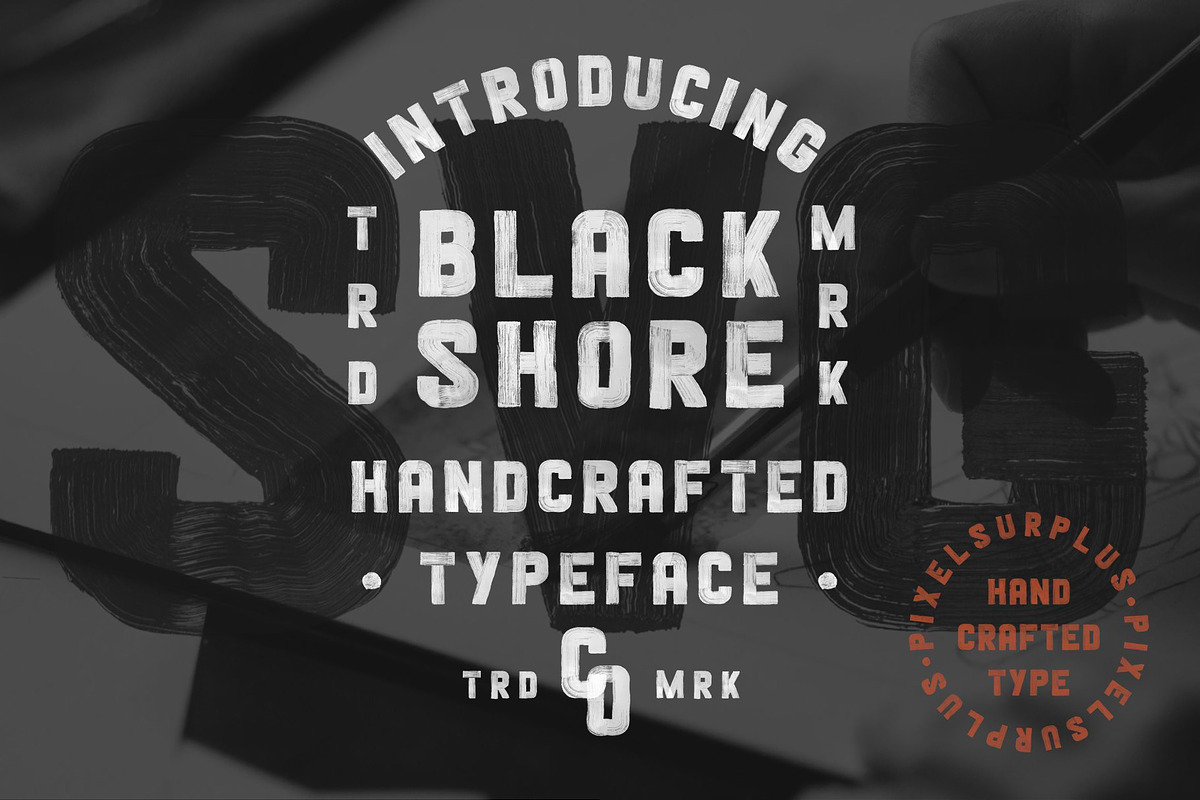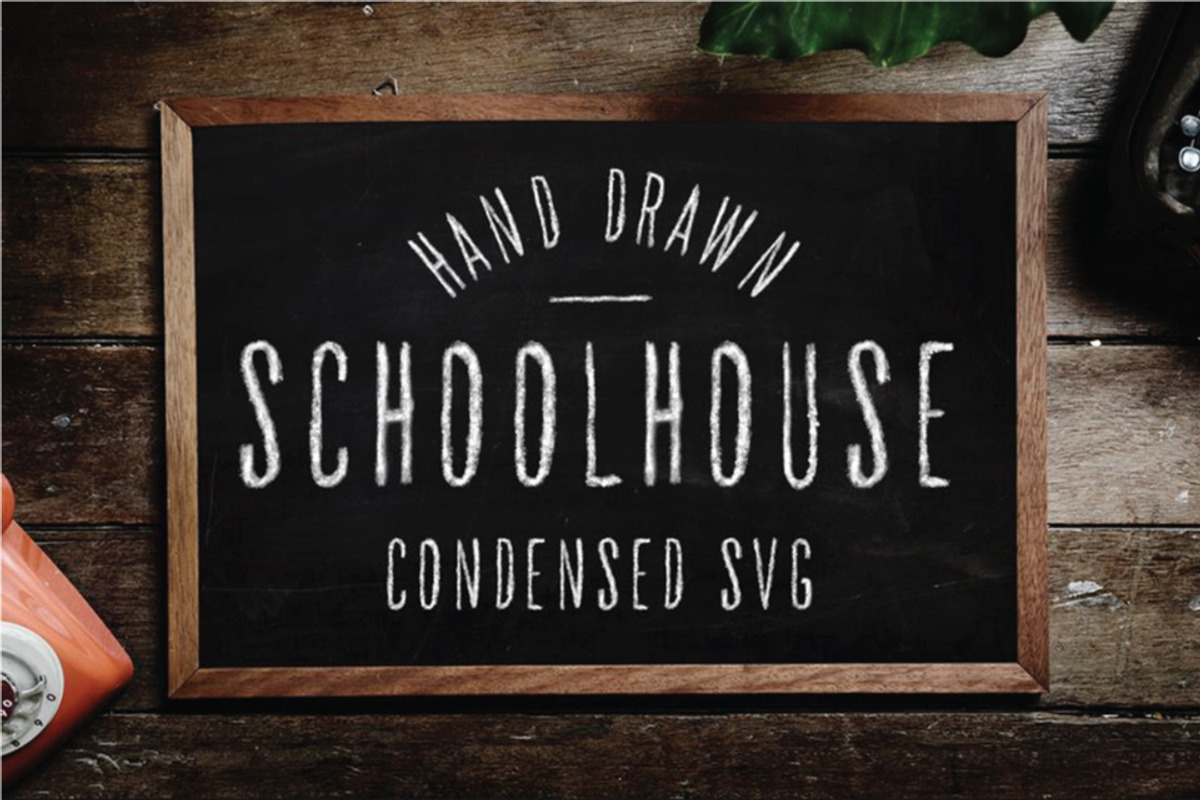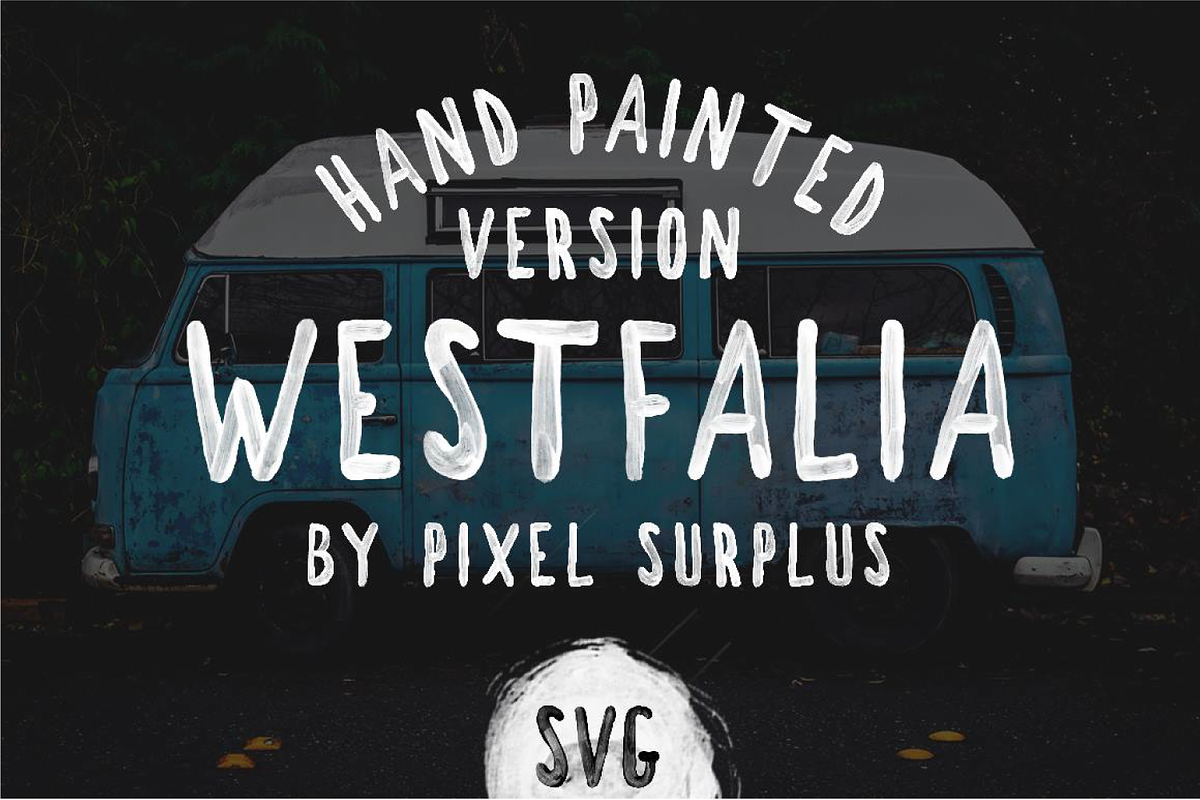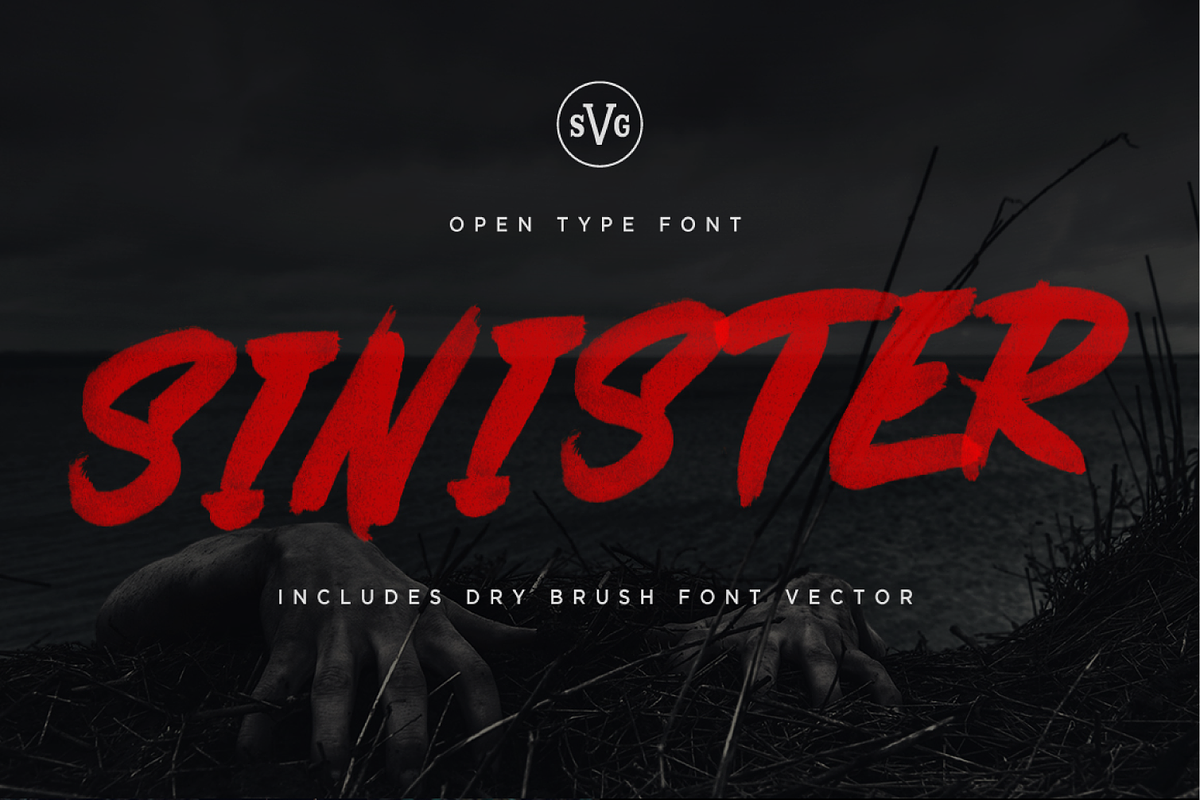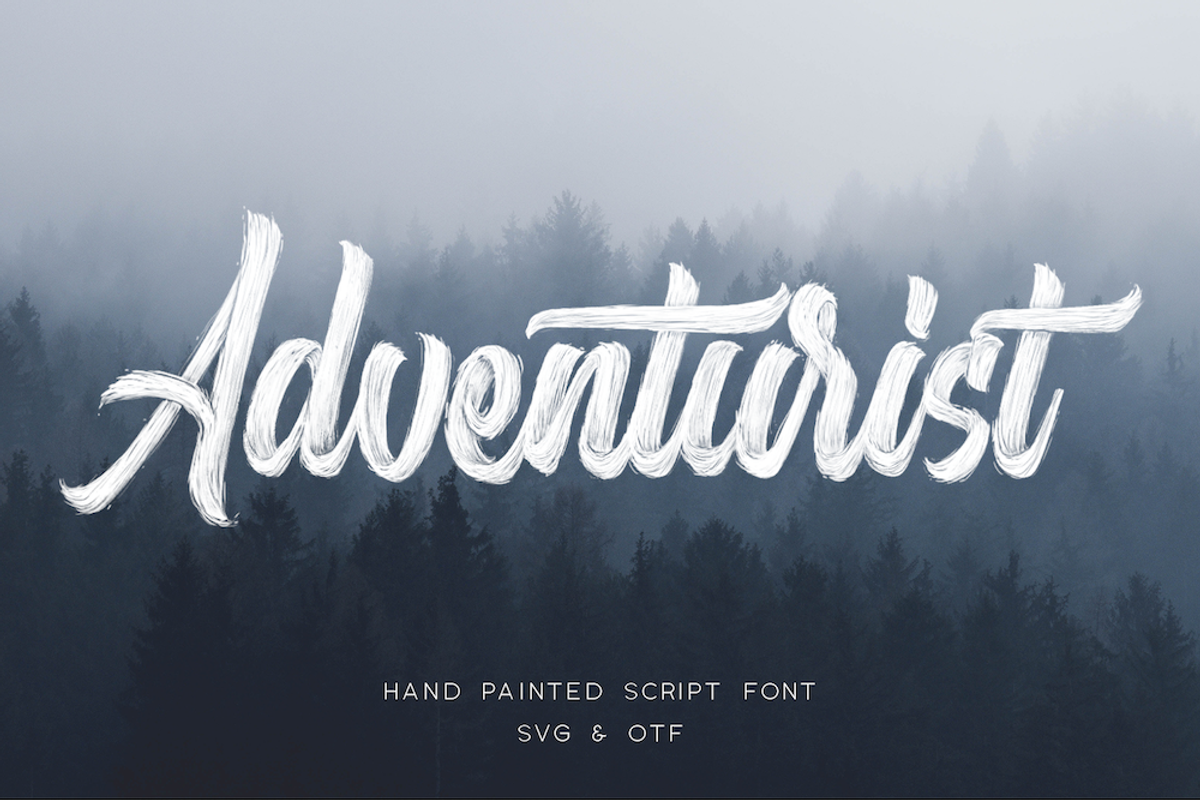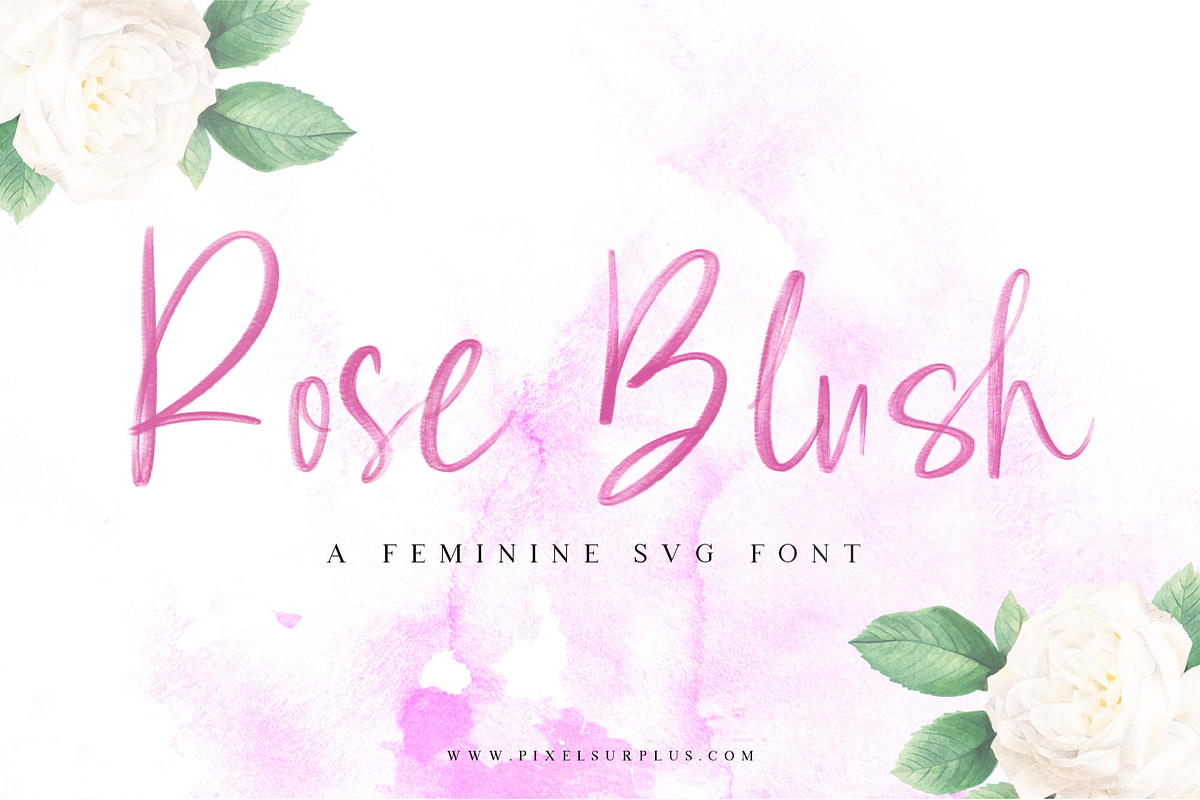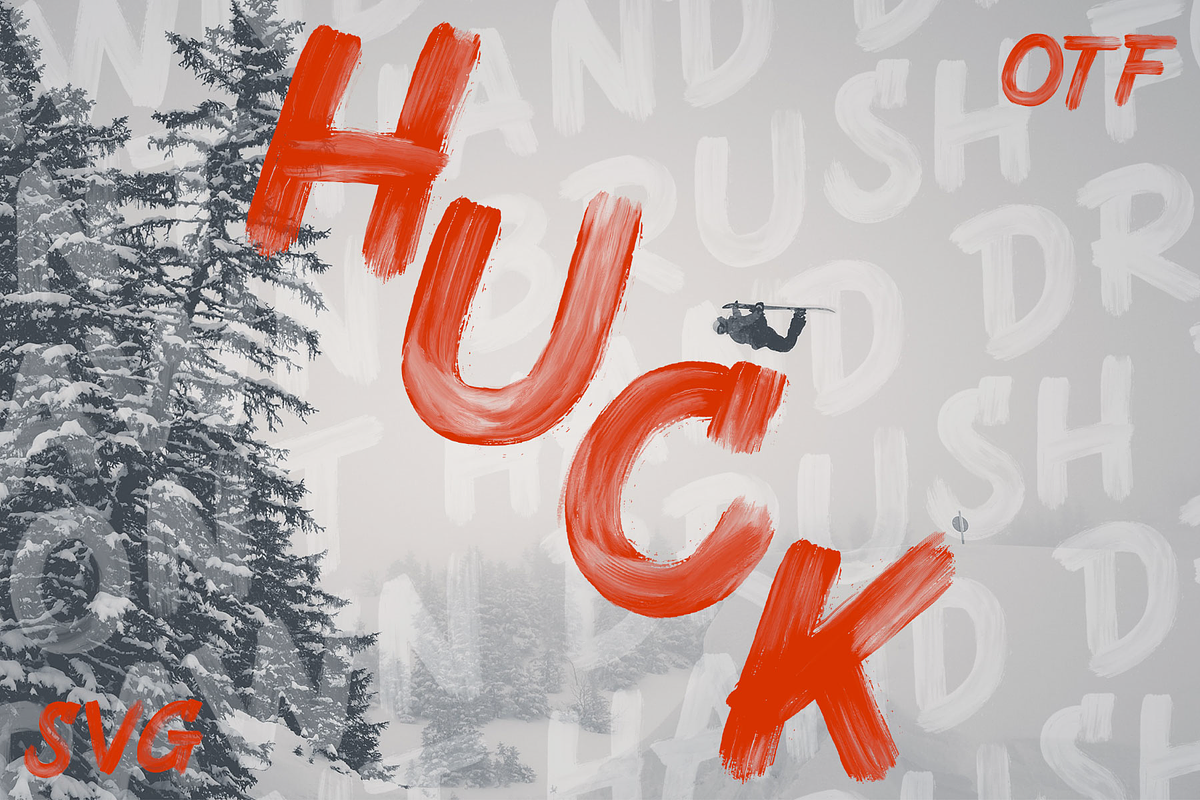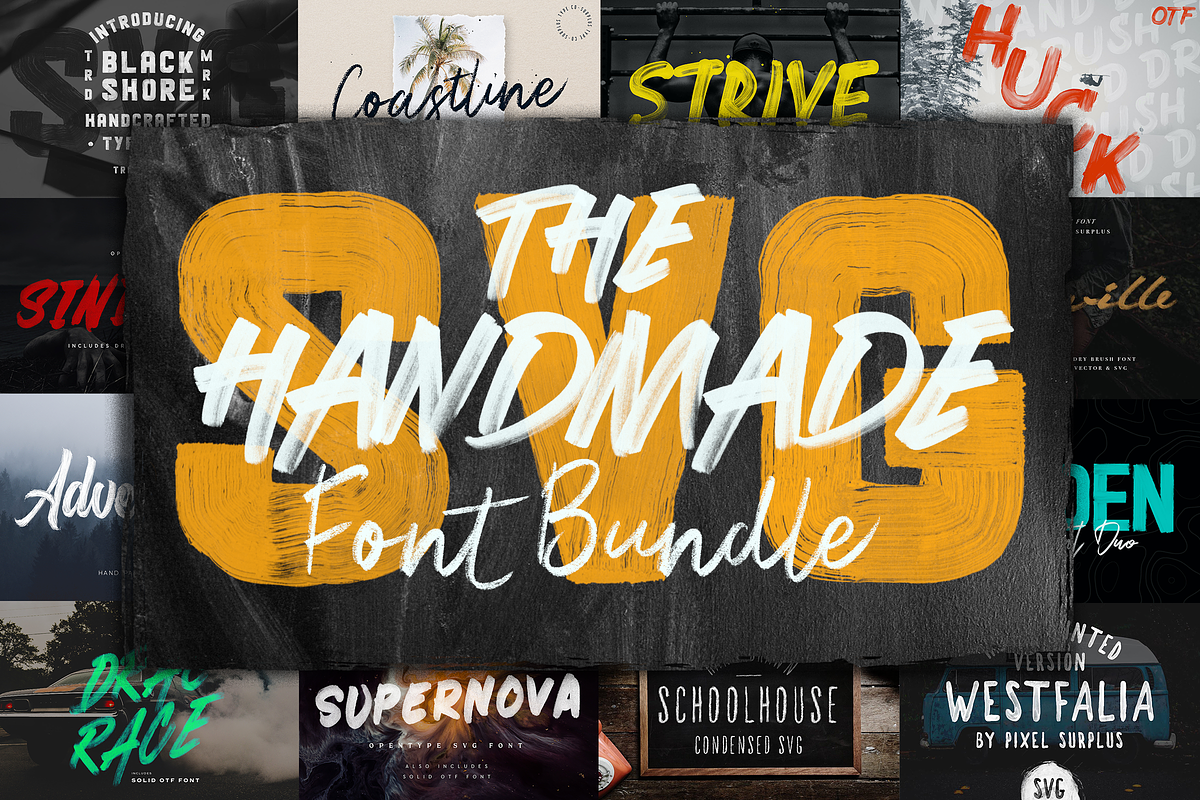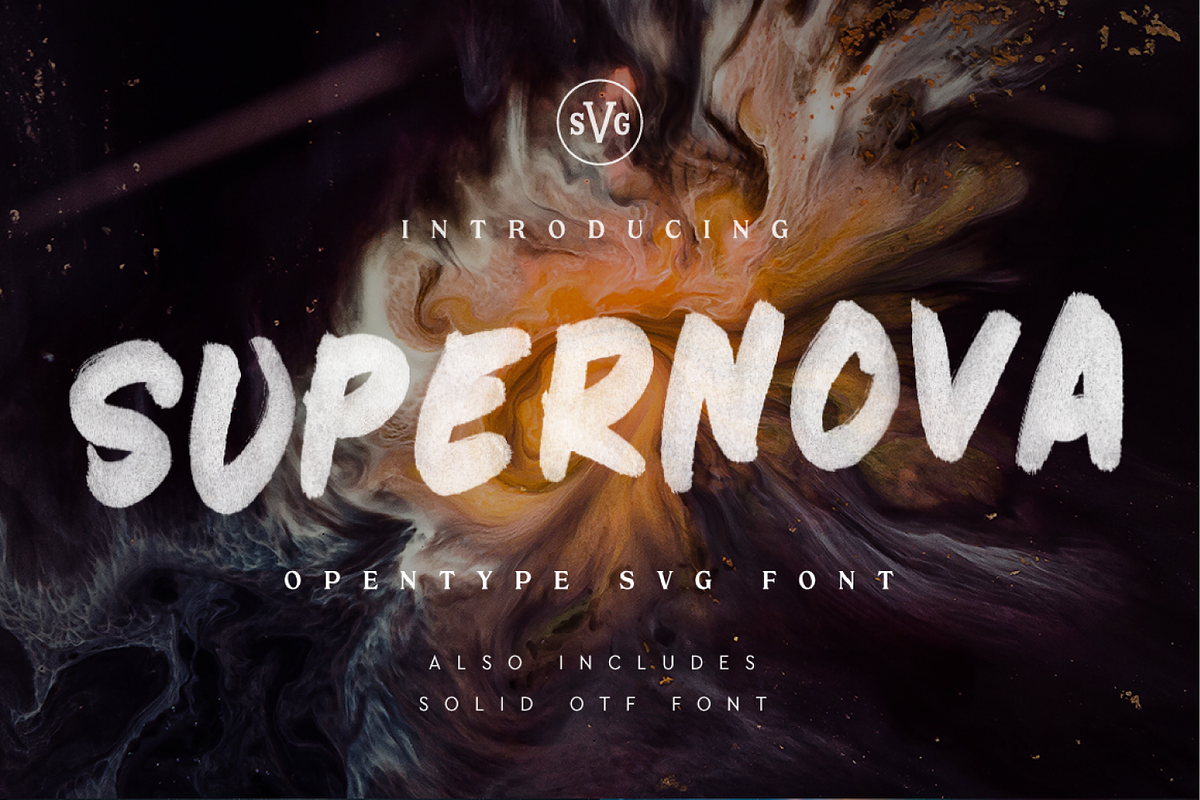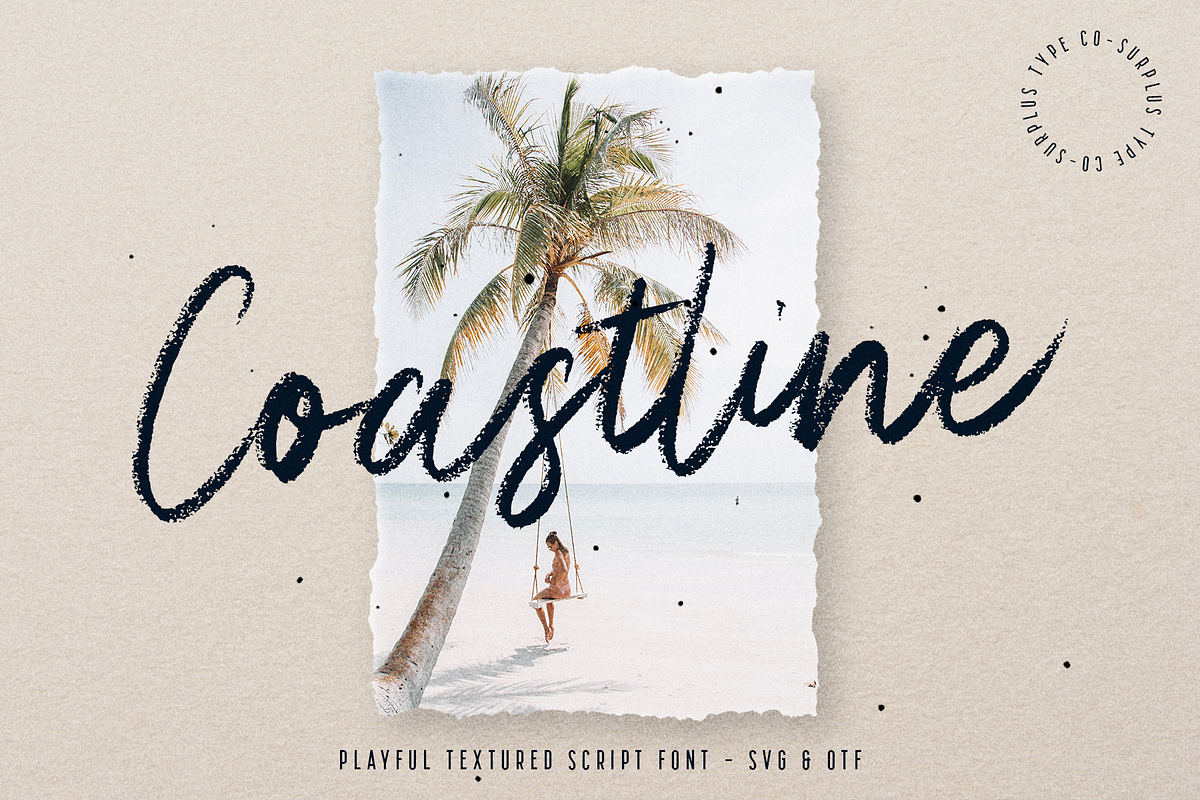
The Handmade SVG Font Bundle
The Handmade SVG Font Bundle features some of our most popular products of all time!
Pick up a few of our best sellers like Halden, Strive & Coastline, along with some hidden gems like Blackshore, Yorkville & Westfalia.
Add amazing texture to your designs with the real transparency and hand drawn brush strokes of SVG fonts. These fonts were created with a variety of mediums including acrylic paint, as well as various markers and brushes.